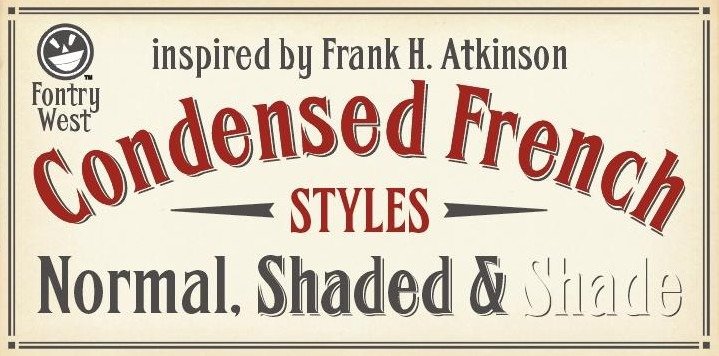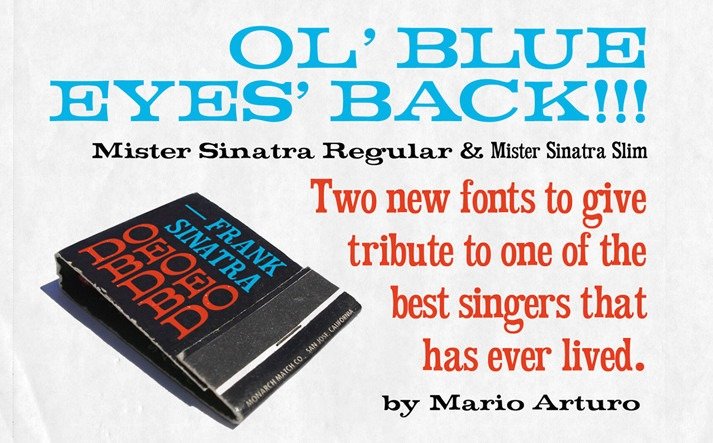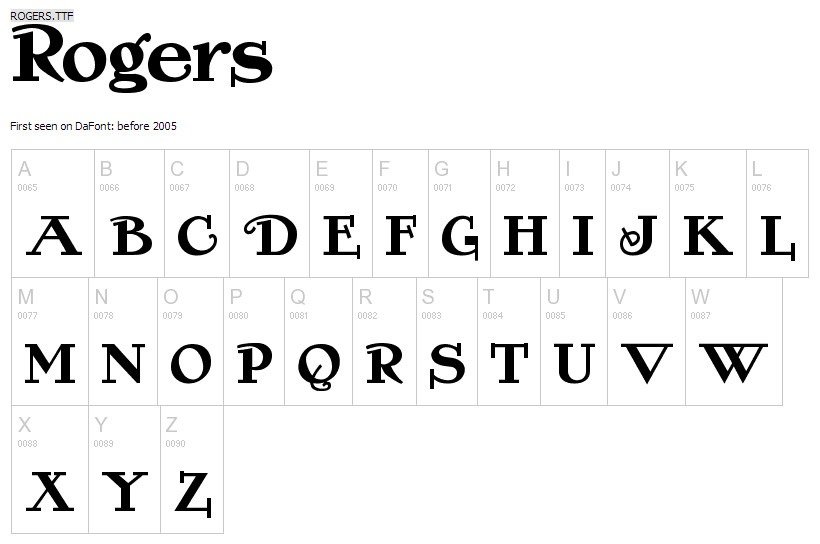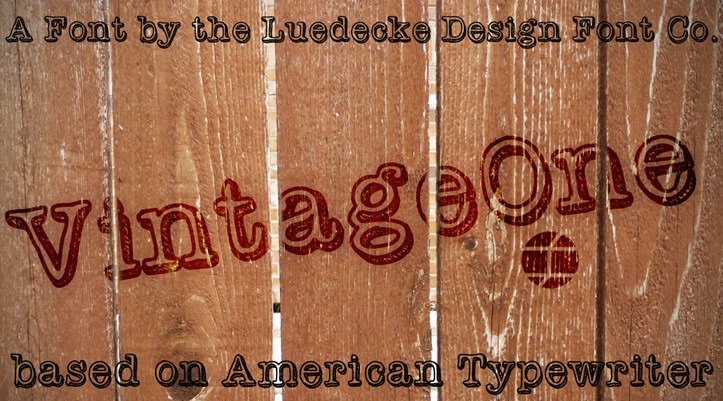
Free retro fonts are quite popular in web design and print design. You can find vintage fonts and retro fonts everywhere in your surroundings today. Vintage items are defined as objects that are once popular during late 19th century to early 20th century. The good old days just does something good to us, and with these beautiful free fonts you can get a realistic look and feel of the past.
Basically, a usual retro font used in posters is bold and big while logos and taglines often use calligraphy and handwritten vintage fonts. Some designers prefer premium fonts. However, there are several free retro fonts that offer high-quality typography that can be used at no cost. Below are some of the inspiring free retro fonts to help you find what you need for your next project. Please share your thoughts with us in the comment section.
Mister Sinatra Font – MORE INFO
These free retro fonts are inspired from a popular musician in the 50s, Frank Sinatra. This typography features bold and narrow fonts and special characters, which are often used as headings of the chapters in a novel.
FHA Condensed French – MORE INFO
This typography has probably created as a wood type for headlines, display and posters. In fact, the exaggerated sharp serifs on the fonts were common during 19th century era.
Vintage One – MORE INFO
Vintage One is a comical retro-inspired typeface that presents font letters, numbers, and other grammatical characters, which are perfect for headline or section title use in websites.
Rogers – MORE INFO
Rogers Font is an example of free retro fonts that contain classic upper and lowercase letters, as well as Arabic numerical and plenty of special characters. It can be used as fonts for article contents in vintage-themed websites.